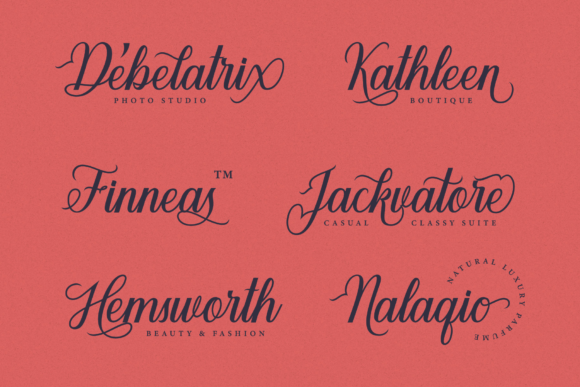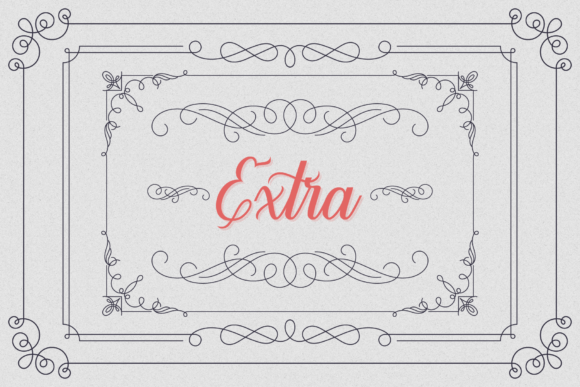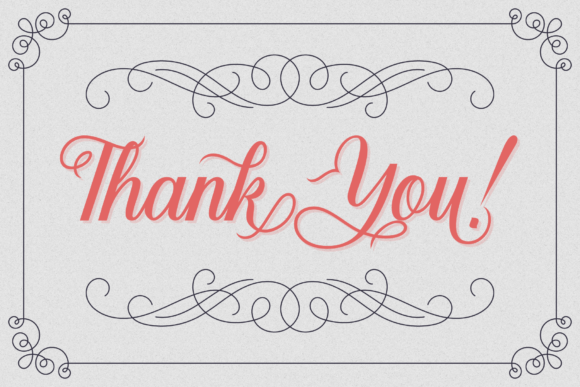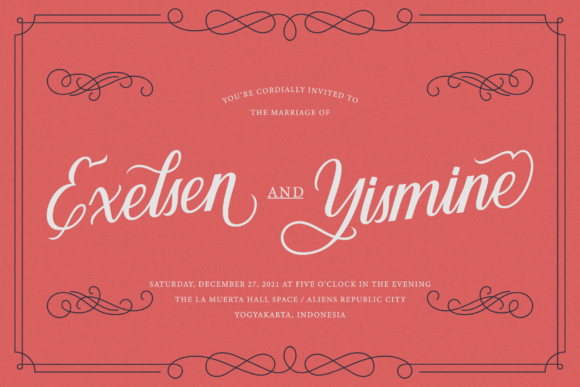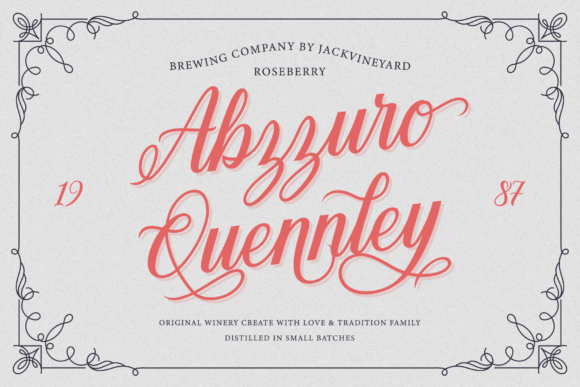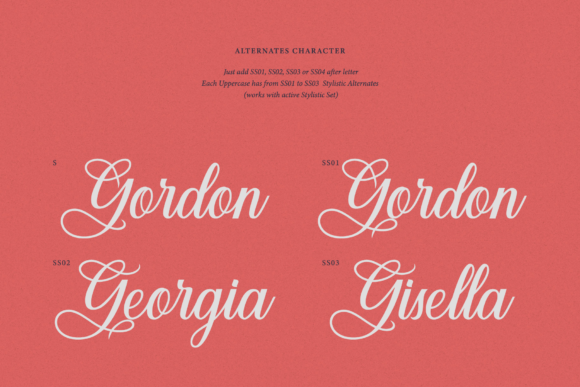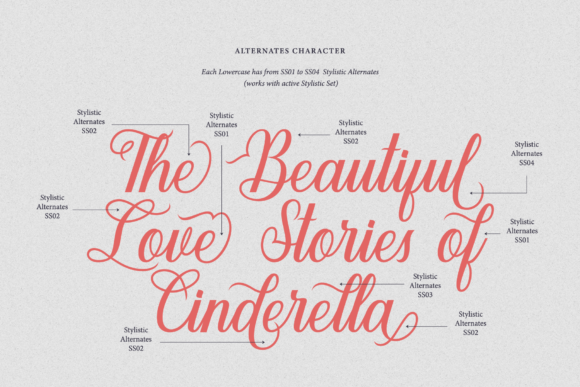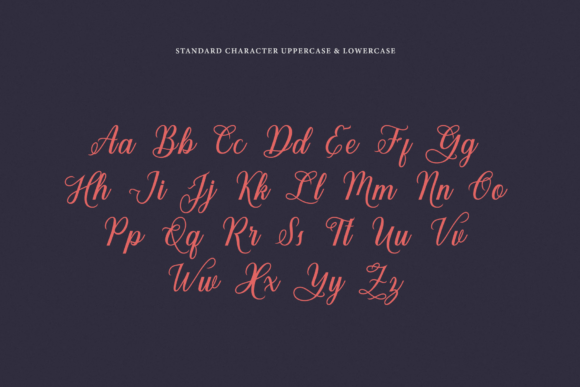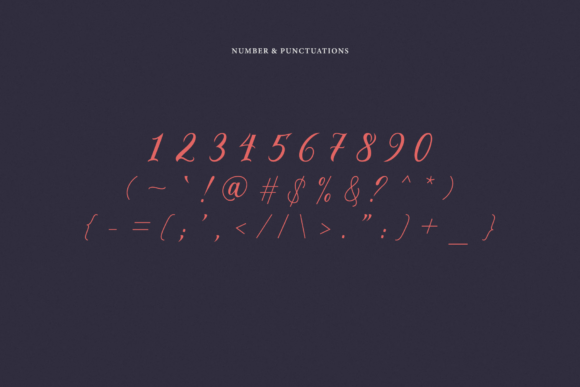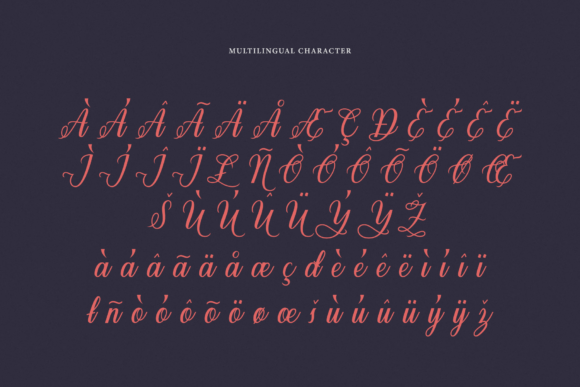
Viz Del La Muerta Font
About Viz Del La Muerta Font
Viz Del La Muerta is an old style script font with a delicate touch. This font, which is inspired by the basic form of copperplate letters, is the right choice irrespective of the topic.